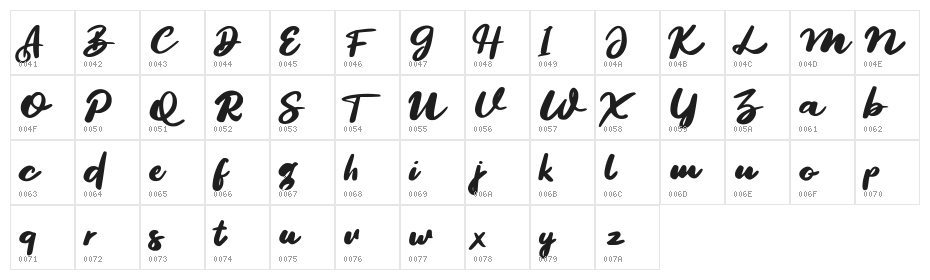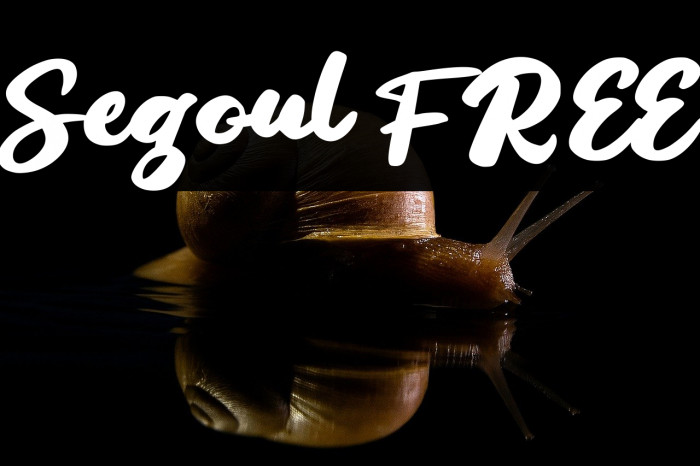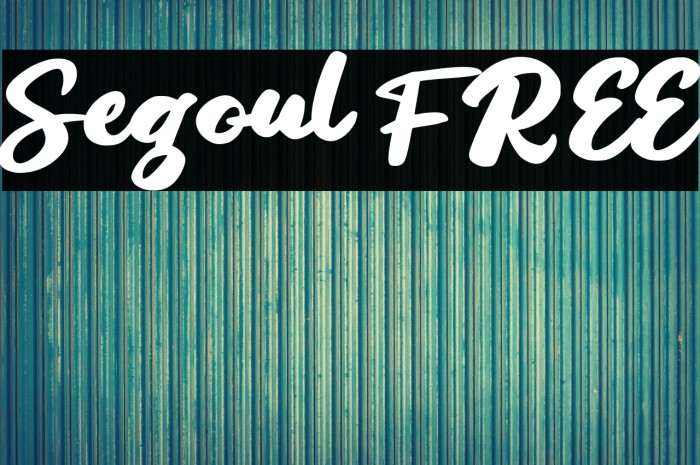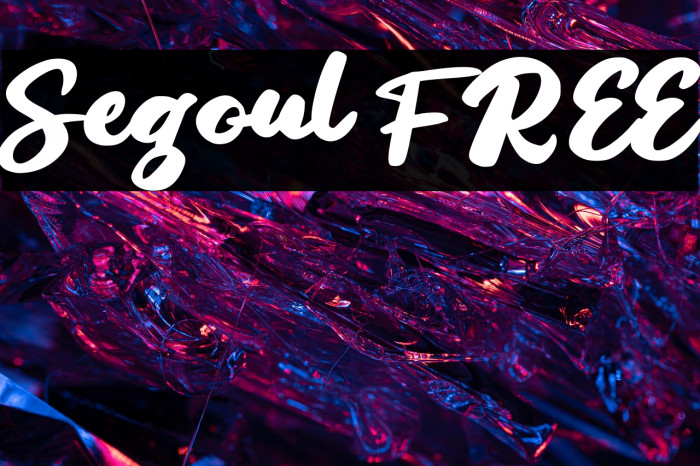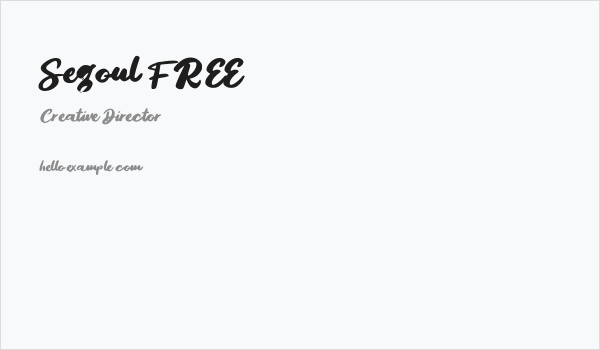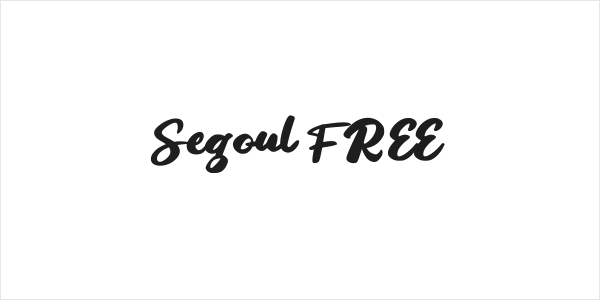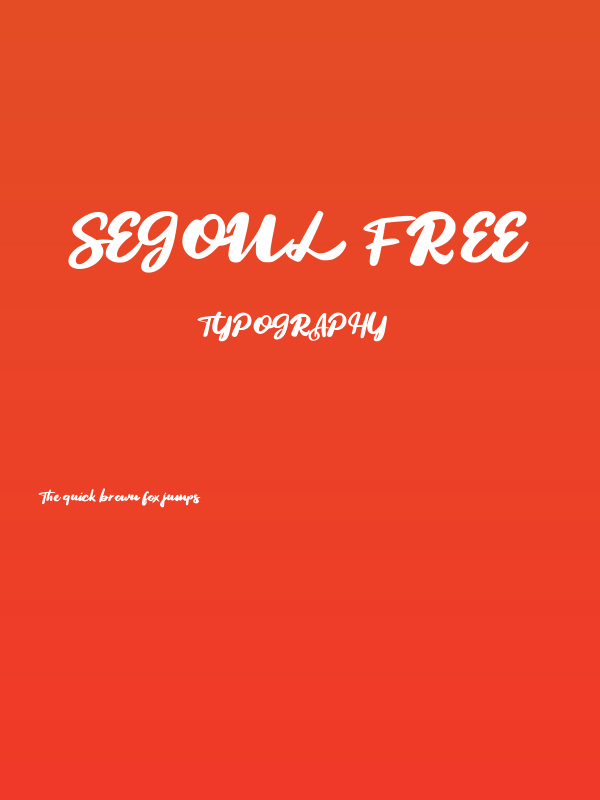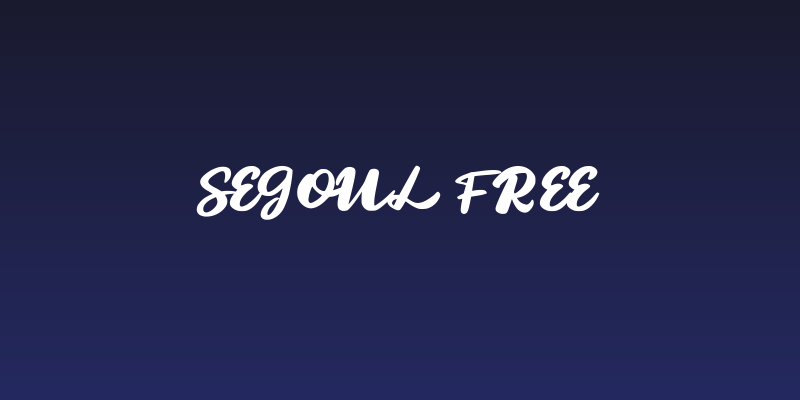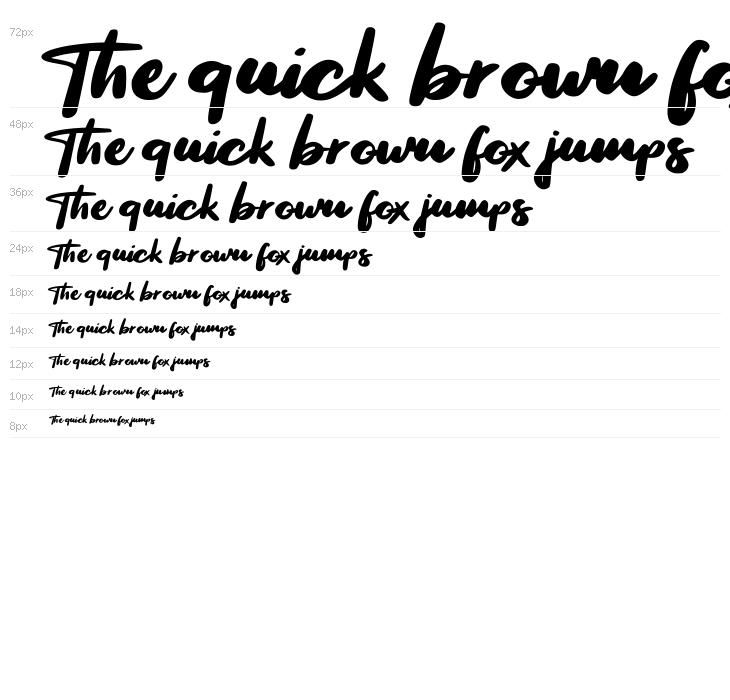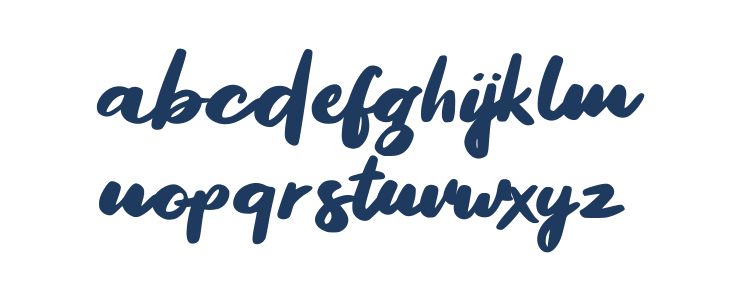
Segoul FREE Font
Segoul FREE Description
This font features a bold, cursive style with a smooth and flowing appearance. The letters are interconnected, creating a seamless and elegant look. The uppercase letters are slightly larger and more pronounced, while the lowercase letters maintain a consistent flow. The strokes are thick, providing a strong presence, and the overall design is both modern and stylish. This font is ideal for creating a dynamic and engaging visual impact, suitable for various creative projects.